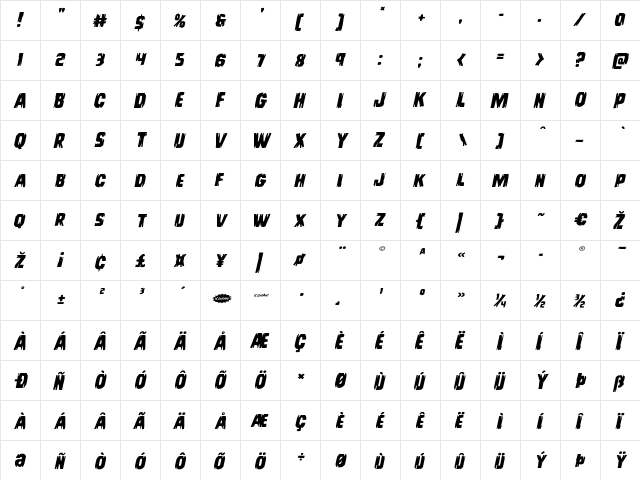
Leatherface Expanded Italic Expanded Italic
Design Context for Leatherface Expanded Italic Typeface
Leatherface Expanded Italic is a composed and adaptable typeface that performs quietly and consistently across a wide range of design contexts. Its italic angle brings a sense of urgency and motion to the letterforms.
Pro Tip: Try Leatherface Expanded Italic for annotation and caption copy alongside an upright companion — the contrast in angle creates a dynamic but ordered typographic system.